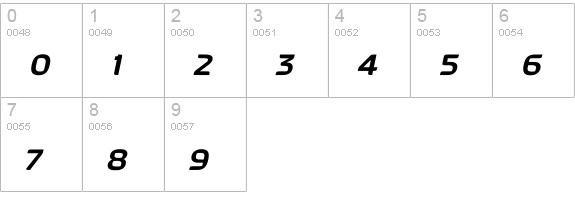
SeptemberBold Italic is a distinctive, italic variant in the SeptemberBold typeface family \xE2\x80\x94 well suited to design and typography projects.
SeptemberBold Italic font is a stunning typeface that exudes elegance and sophistication. Its bold and italic design adds a touch of flair to any project, making it perfect for invitations, branding, and advertising materials. The graceful curves and sharp angles of this font create a harmonious balance that catches the eye and leaves a lasting impression. What makes SeptemberBold Italic font even more appealing is that it is available for free! You can easily download this beautiful font at FontsMarket.com and use it in your personal or commercial projects without any restrictions. Whether you are designing a wedding invitation or creating a stunning logo, SeptemberBold Italic font is sure to elevate your work to the next level. Don't miss out on the opportunity to add this versatile and stylish font to your collection today!